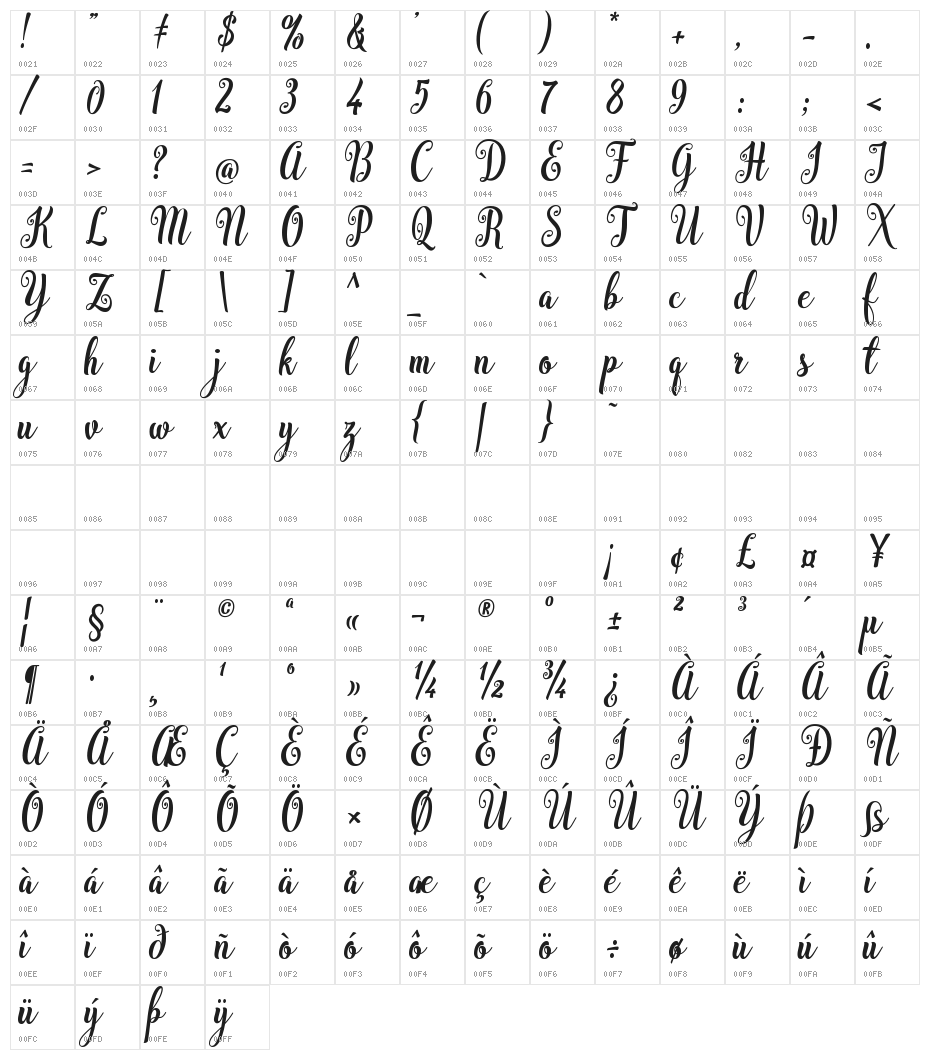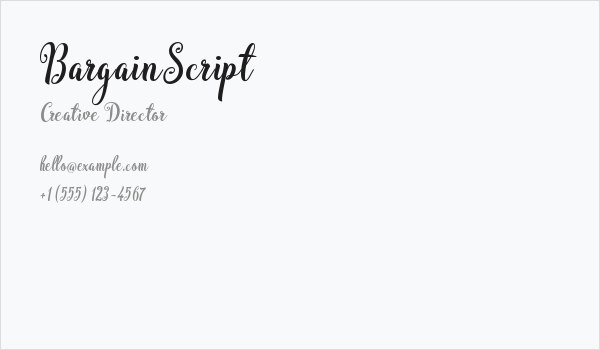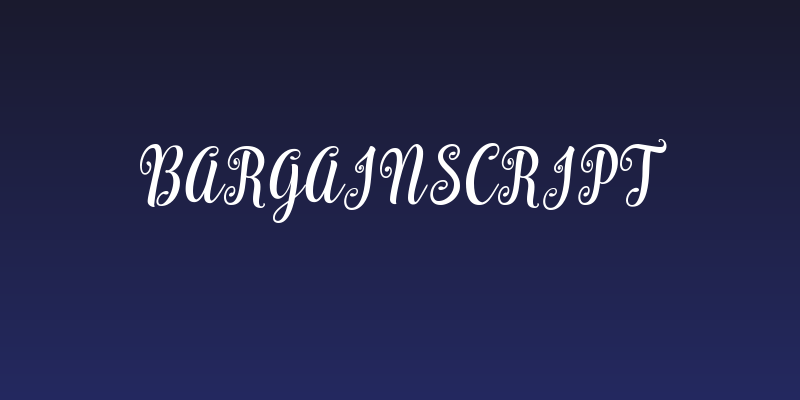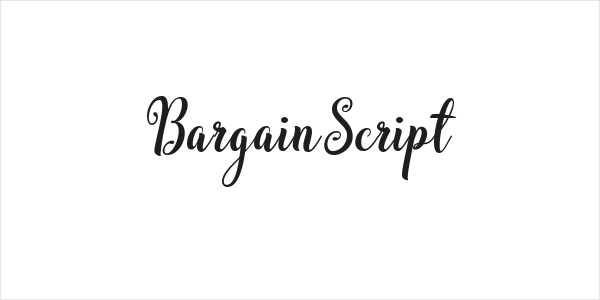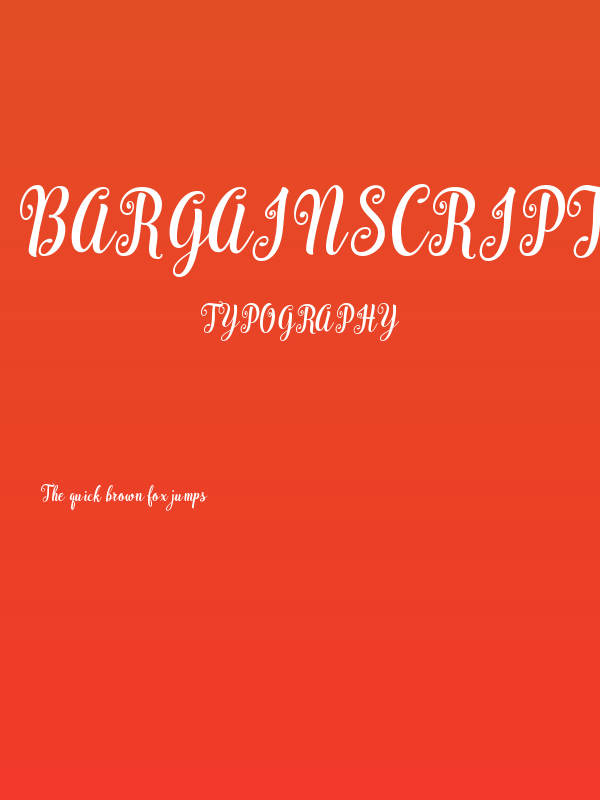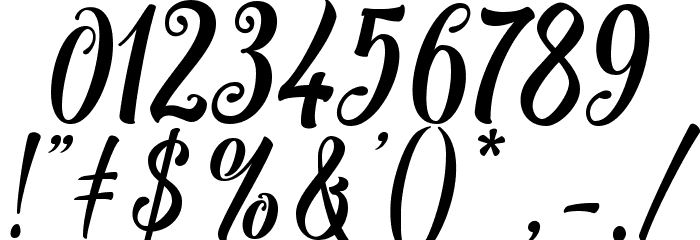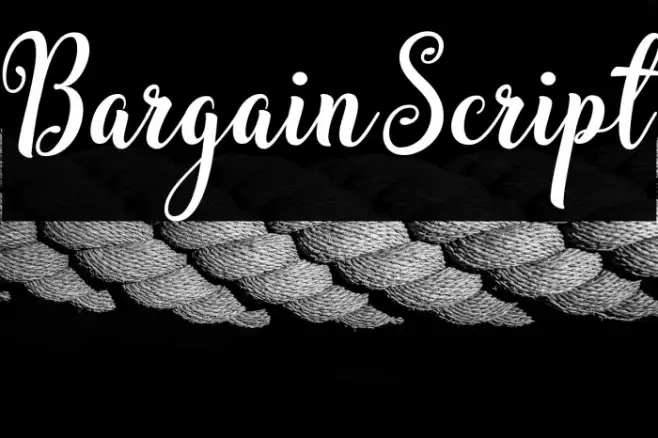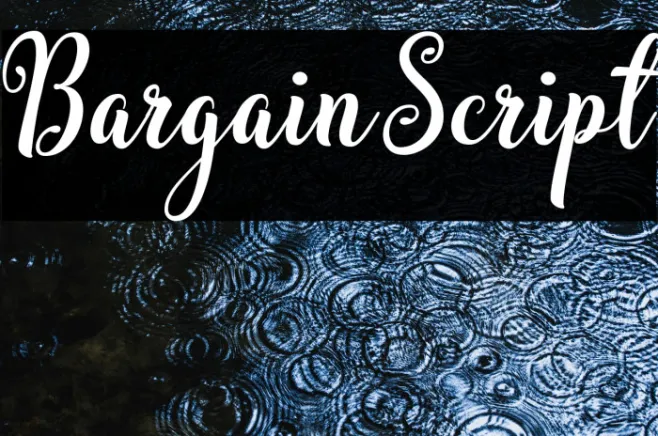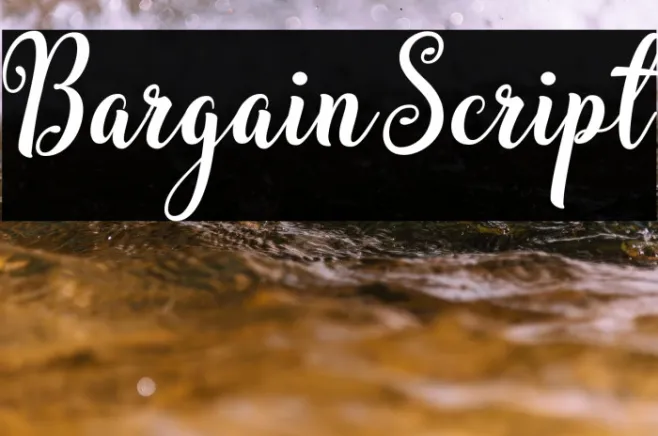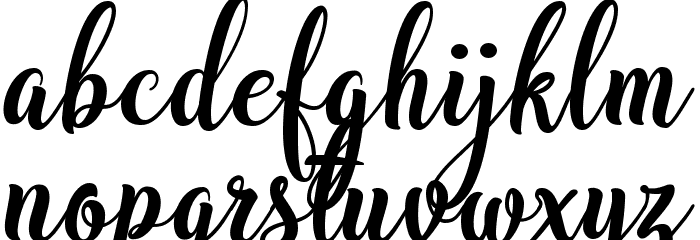
BargainScript Font
BargainScript Description
This font features an elegant and flowing script style, characterized by its smooth, cursive strokes and decorative swashes. The uppercase letters are adorned with intricate loops and flourishes, adding a touch of sophistication and charm. The lowercase letters maintain a consistent flow, enhancing readability while retaining a stylish appearance. Numbers and special characters are designed with the same attention to detail, ensuring a cohesive look across all elements. This font exudes a sense of elegance and grace, making it suitable for a variety of creative applications.
| Use Case | Headlines, Invitations, Branding |
| Proposed Projects | Ideal for wedding invitations, greeting cards, branding, and elegant packaging designs. |